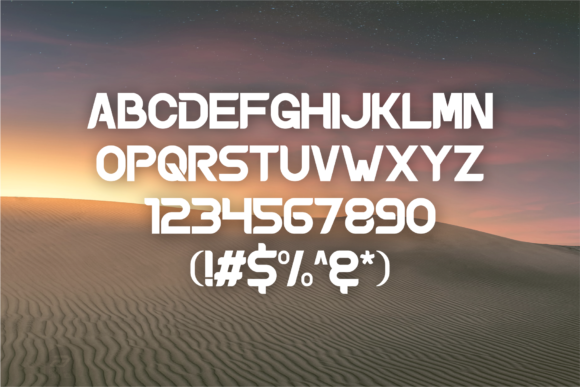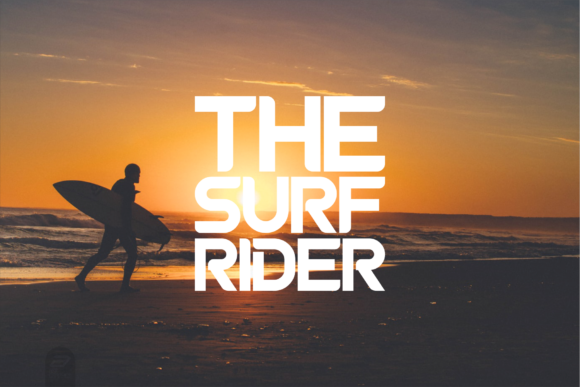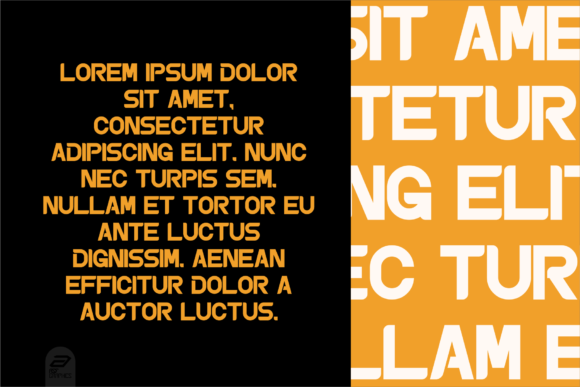
Introducing Amigo Font: The Bold and Versatile Display Font
Are you tired of using the same old fonts in your designs? Look no further than Amigo Font, a bold and thick lettered display font that’s perfect for adding a touch of personality to your creations. Whether you’re a designer, crafter, or simply someone who loves to dabble in typography, Amigo Font is an incredible asset to have in your font library.
The Power of Bold Typography
Amigo Font is all about making a statement. Its bold and thick letters are designed to grab attention and add a level of sophistication to your designs. Whether you’re creating a logo, poster, or social media graphic, Amigo Font is the perfect choice for those who want to make a lasting impression.
One of the best things about Amigo Font is its versatility. No matter the topic or theme, this font can adapt to fit your needs. From bold and edgy designs to more playful and whimsical creations, Amigo Font is the perfect chameleon to add to your font collection.
Amigo Font is a must-have for designers and crafters who want to add a professional touch to their work. With its clean lines and bold typography, this font is perfect for:
- Social media graphics and ads
Why Choose Amigo Font?
So why choose Amigo Font over other display fonts on the market? Here are just a few reasons:
- Unique and eye-catching: Amigo Font is unlike any other font on the market. Its bold and thick letters are sure to turn heads and grab attention.
- High-quality design: Amigo Font is designed with precision and care, ensuring that every letter and character is crisp and clear.
Getting the Most Out of Amigo Font
To get the most out of Amigo Font, here are a few tips:
- Experiment with different colors: Amigo Font looks great in a variety of colors, from bold and bright to more muted and subtle.
- Play with font sizes: Amigo Font is designed to be versatile, so don’t be afraid to experiment with different font sizes to add visual interest to your designs.
- Pair with other fonts: Amigo Font pairs well with a variety of other fonts, so don’t be afraid to get creative and experiment with different font combinations.
In conclusion, Amigo Font is a bold and versatile display font that’s perfect for designers and crafters who want to add a touch of personality to their creations. With its unique and eye-catching design, high-quality construction, and ease of use, Amigo Font is a must-have for anyone looking to elevate their designs and take their typography to the next level.